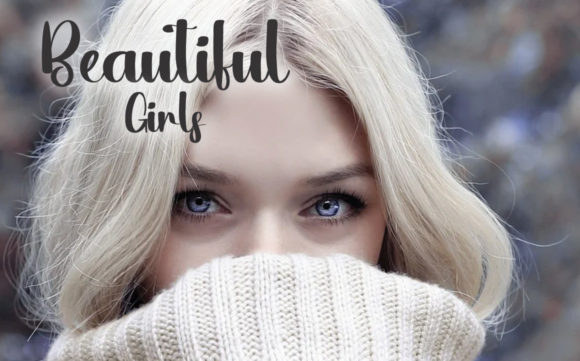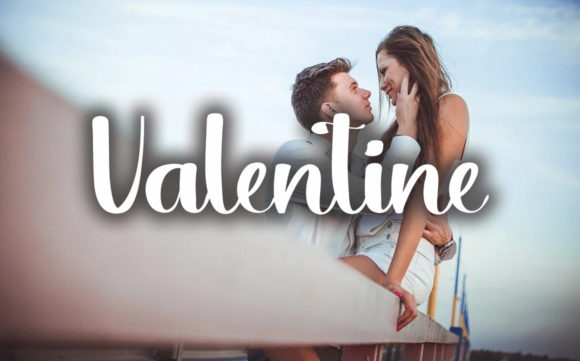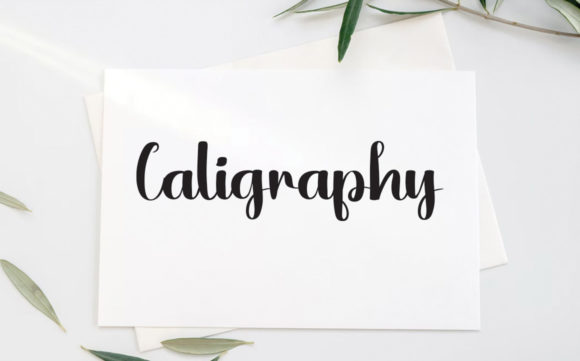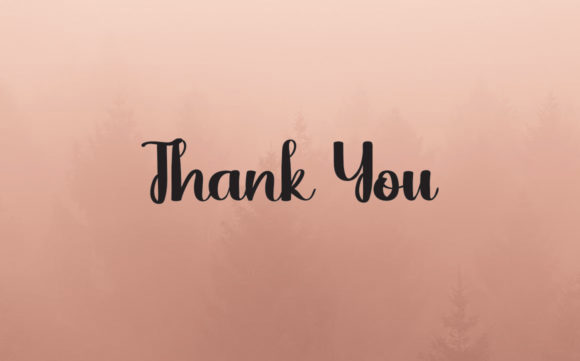
The Inspire Font
About The Inspire Font
The Inspire is a beautifully flowing and modern handwritten font. Use it for wall displays, wedding invitations, social media posts, logos, advertisements, product packaging, product designs, labels, photography, watermarks, invitations, stationery, and any project that requires impressive typography.